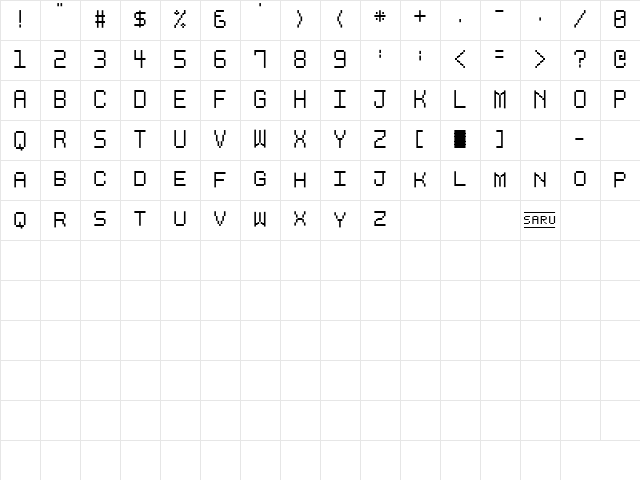
Bit Tough15 (sRB) Regular Font Preview
Bit Tough15 (sRB) Regular
Design Context for Bit Tough15 (sRB) Typeface
Bit Tough15 (sRB) is a composed and adaptable typeface that performs quietly and consistently across a wide range of design contexts.